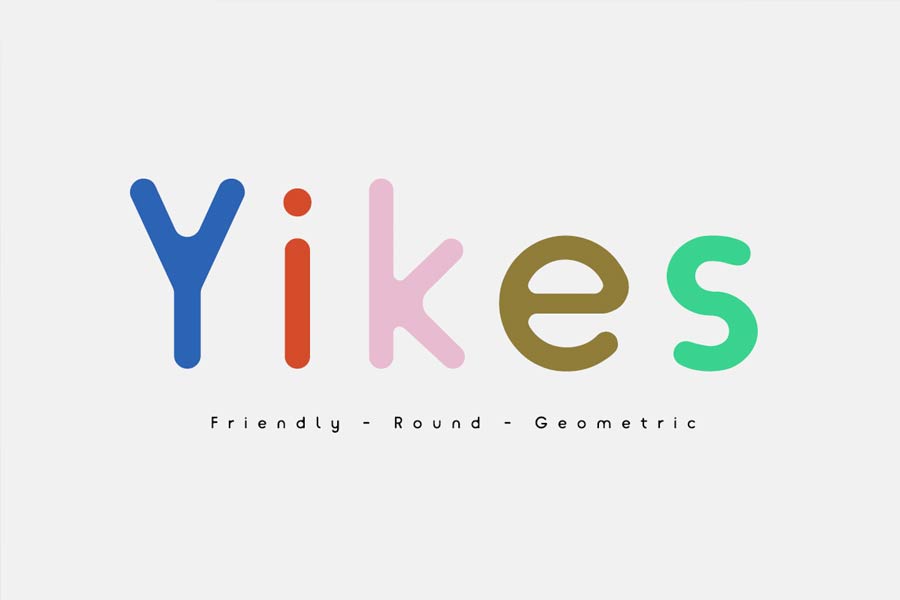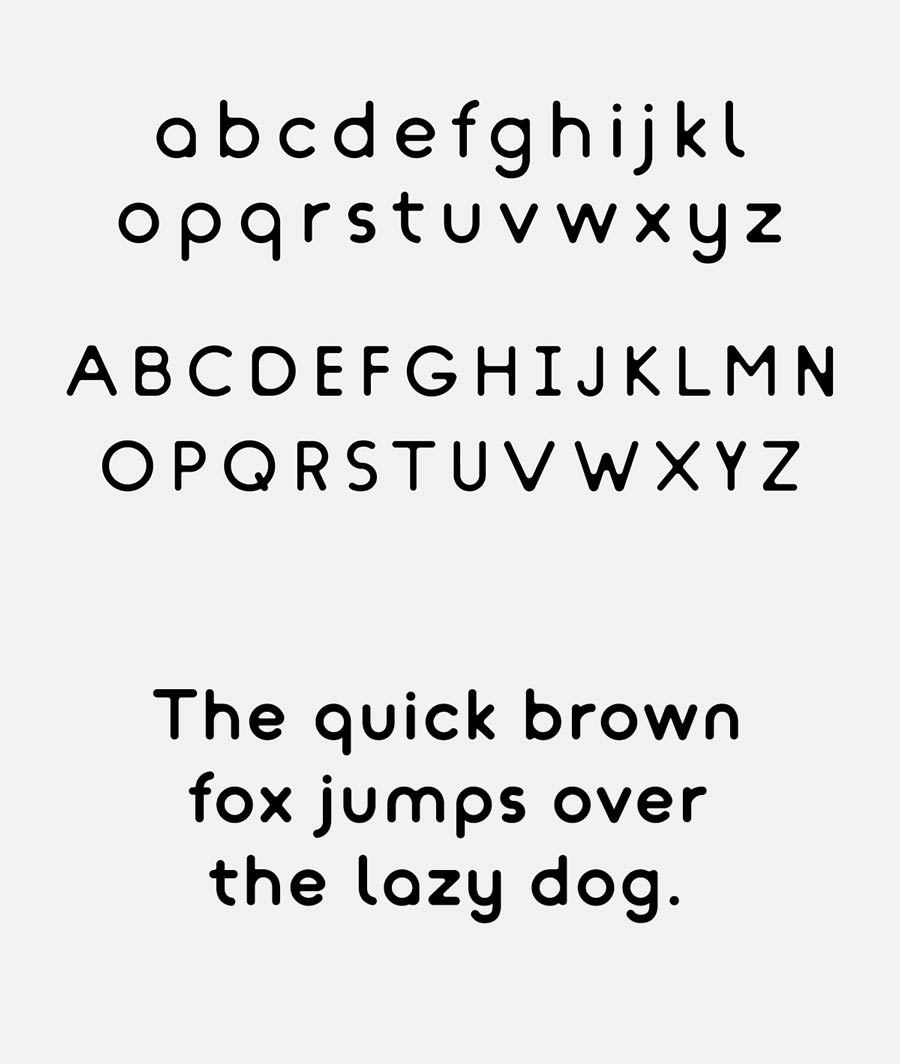
Yikes font is born inspired by the round shape. There were no sharp edges on all characters, just softer rounded corners. This harmonious, clean font is suitable for logotypes, headlines and typographic poster designs.